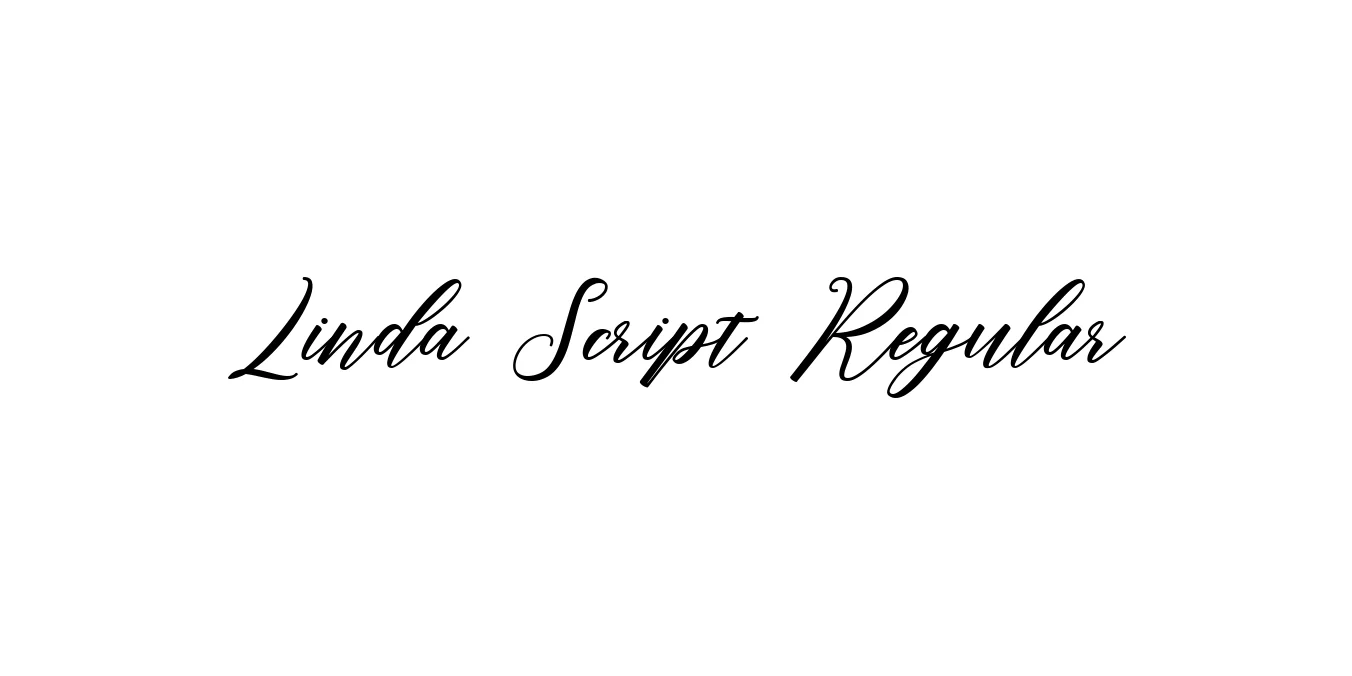
Linda Script Regular
Designed by Artimasa Studio
| Font Name | Linda Script |
| Designer | Artimasa Studio |
Linda Script Regular is a sophisticated, hand-lettered calligraphic typeface designed to convey elegance and fluid motion. Developed by Artimasa Studio, this font features smooth, flowing strokes and a distinctive rhythmic quality that mimics natural handwriting. Its versatile nature allows it to bridge the gap between traditional formal script and modern casual lettering, making it a favorite for designers seeking a personal touch for their creative projects.
The font is characterized by its high-contrast strokes and generous swashes, which provide a sense of luxury and refinement. Whether used for high-end branding or intimate event invitations, Linda Script Regular maintains excellent legibility while offering a variety of decorative alternates. Its timeless aesthetic ensures it remains relevant for both digital layouts and physical print media, providing a professional finish to any typographic composition.
Linda Script Regular Best Uses
Perfect for romantic and formal stationery items.
Ideal for elegant logos in the fashion or beauty industry.
Great for creating inspirational quotes and personal posts.
Adds a premium feel to boutique product boxes and labels.